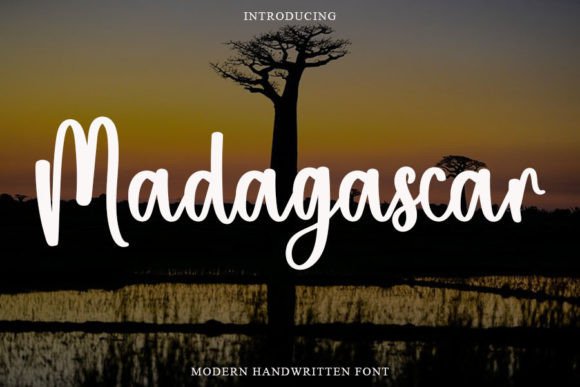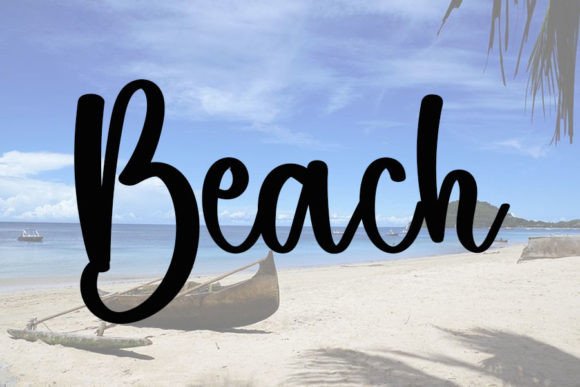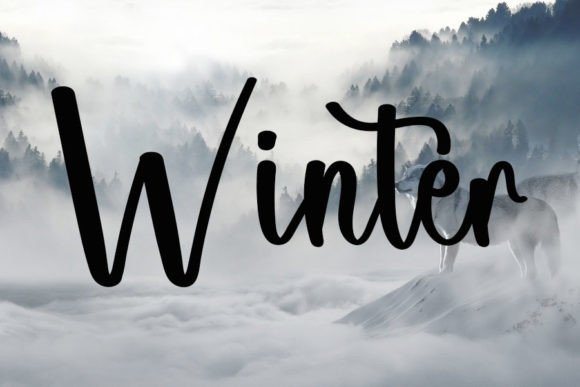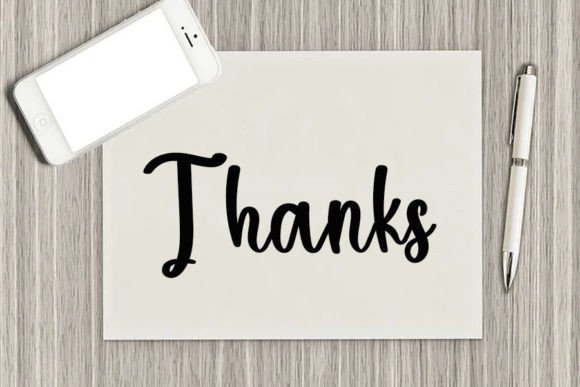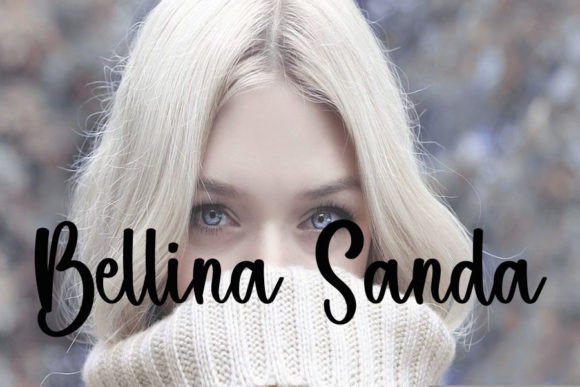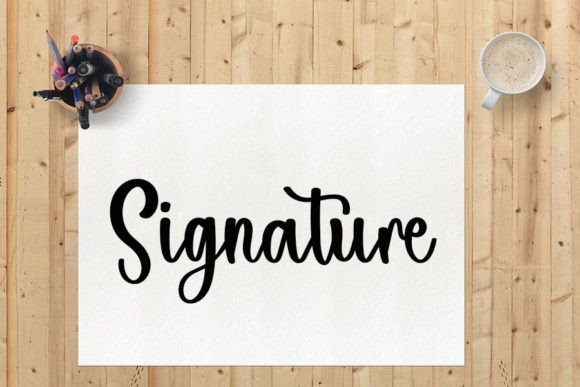
About Madagascar
Madagascar is a magical handwritten font carefully created with a touch of elegance. Clean and a little bit quirky, this font is the perfect fit for all of your logos, branding, social media, and crafty DIY projects.